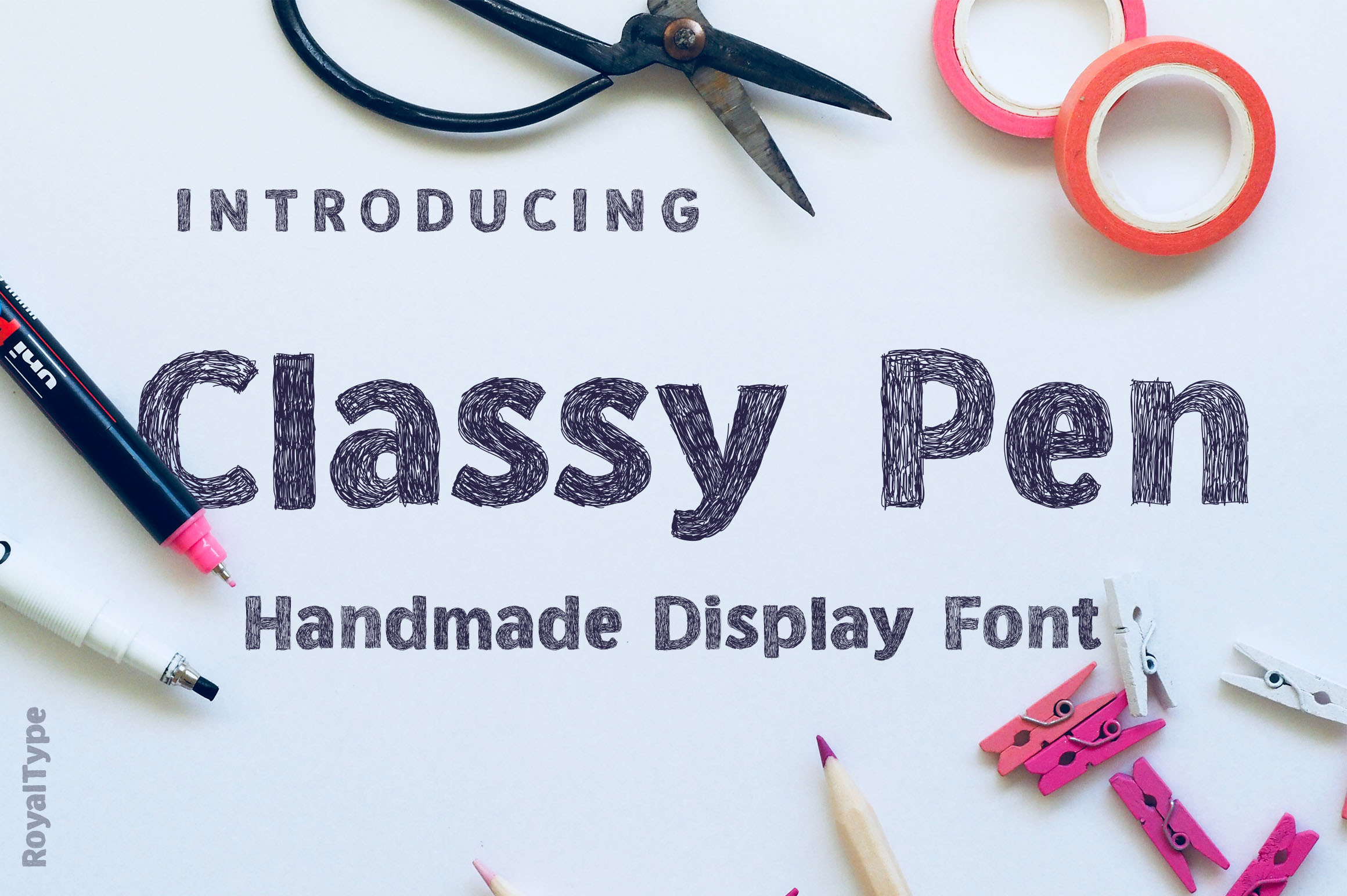
Classy Pen | Scratch Style Font
Introducing my new cool scratch style display font. This font will great for title or subtitle in fancy style. Supported to basic Latin characters (uppercase, lowercase, numeral and symbol). Font file is ClassyPen.ttf font format.